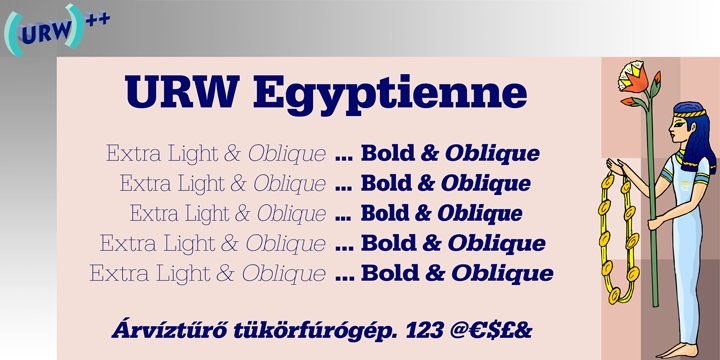
URW Egyptienne Font
URW Egyptienne Font is perfect for editorial headlines, corporate branding, posters, packaging design, and professional presentations. Its classic slab-serif style combines strength with readability, making it suitable for both print and digital projects.
What makes URW Egyptienne Font exciting is its timeless design and elegant proportions. The font balances traditional slab-serif characteristics with a modern touch, giving any project a polished and authoritative look.
The URW Egyptienne Font family includes Light, Regular, Bold, and Extra Bold styles, offering designers versatility to create cohesive and striking typographic hierarchies.